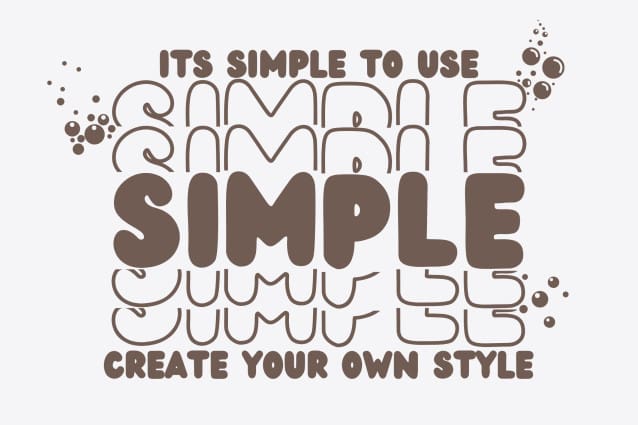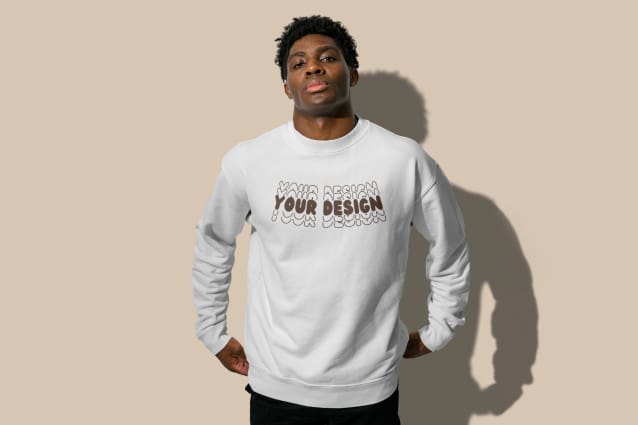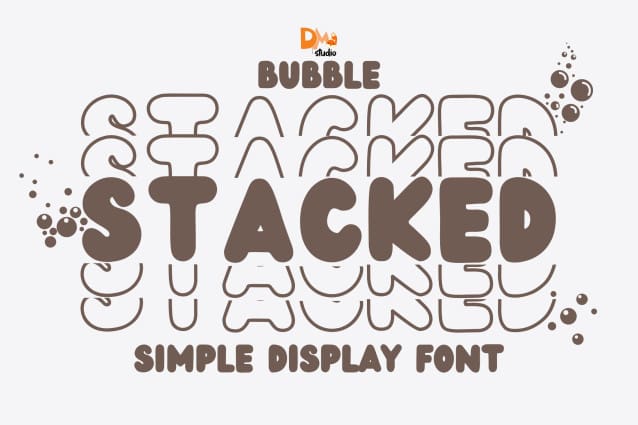
Bubble Stacked Font
Bubble Stacked Font, perfectly fit for branding, logo, wedding things, greeting cards, fashion, lookbook, marketing promotion, anytime you want to look fancy elegant but still casual.